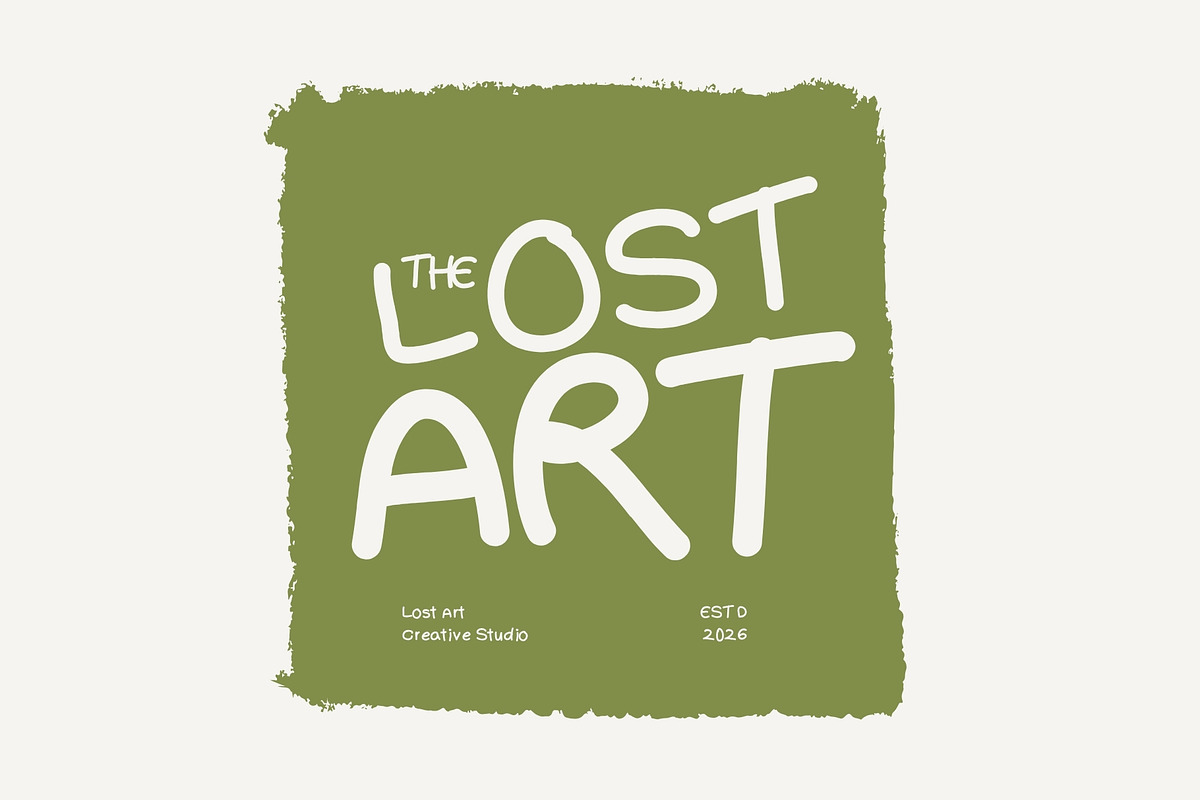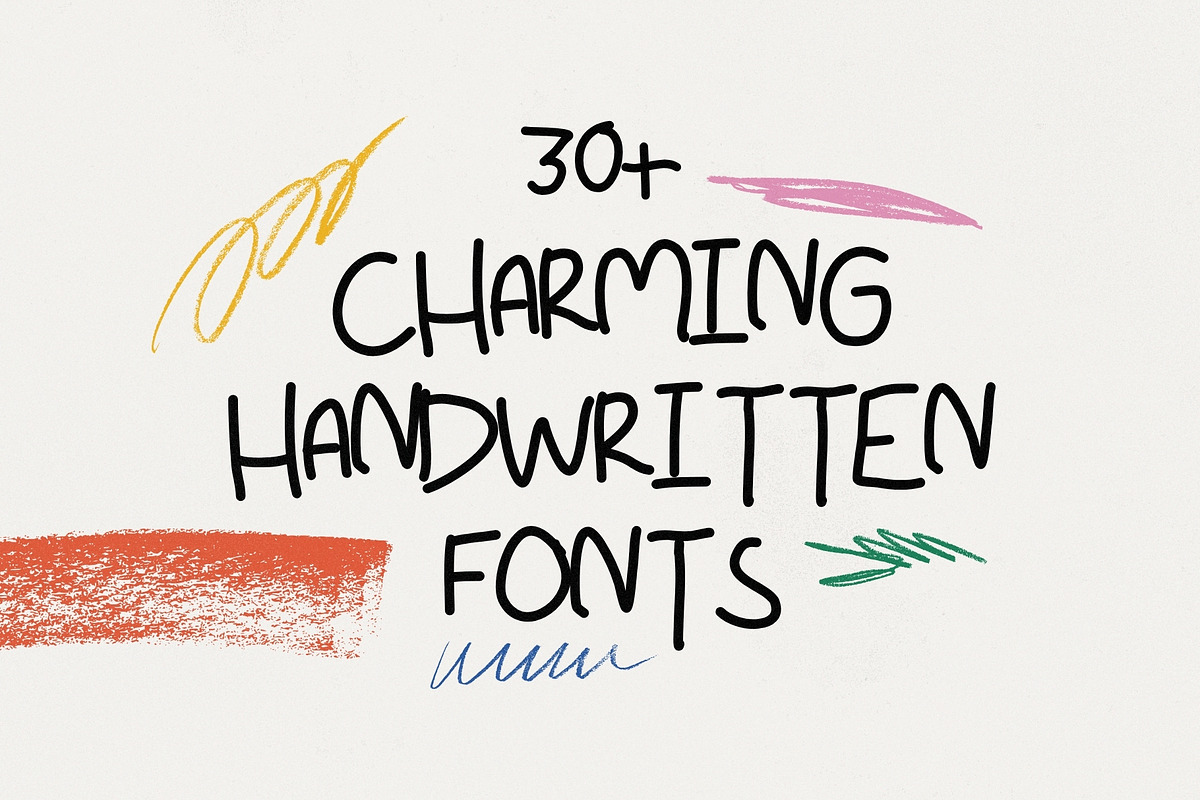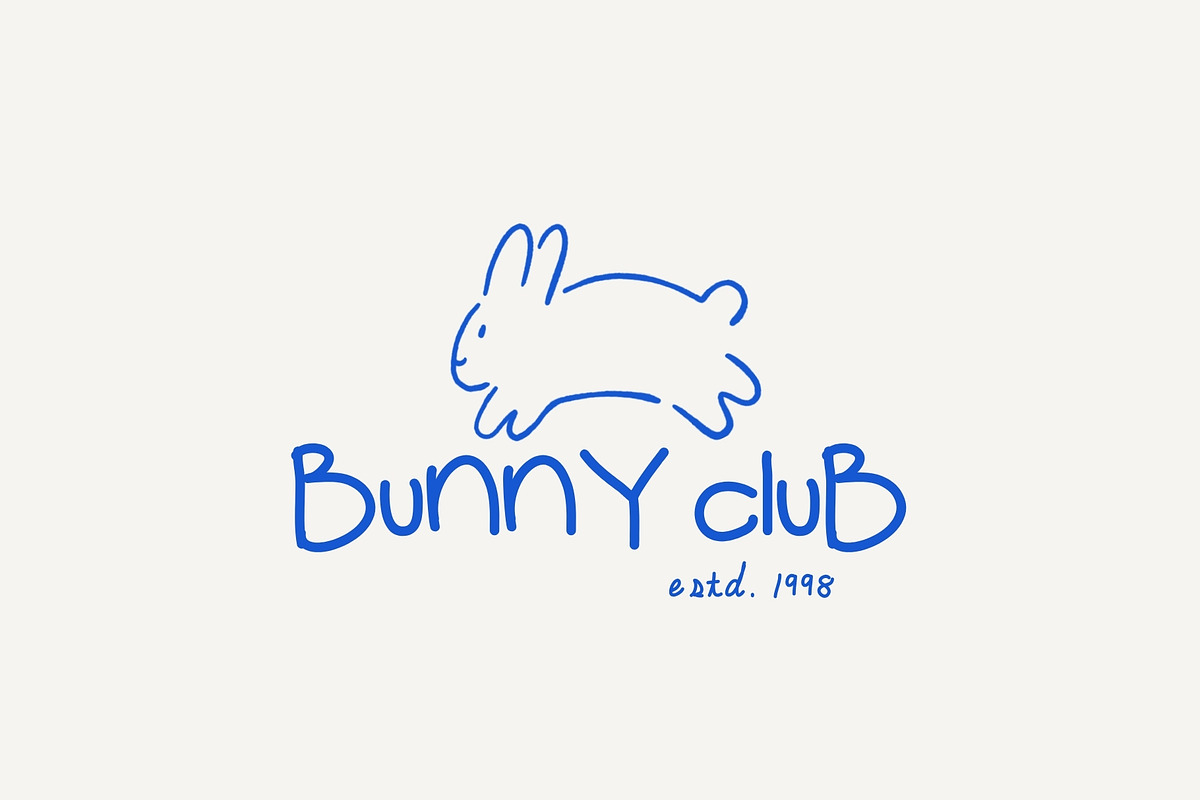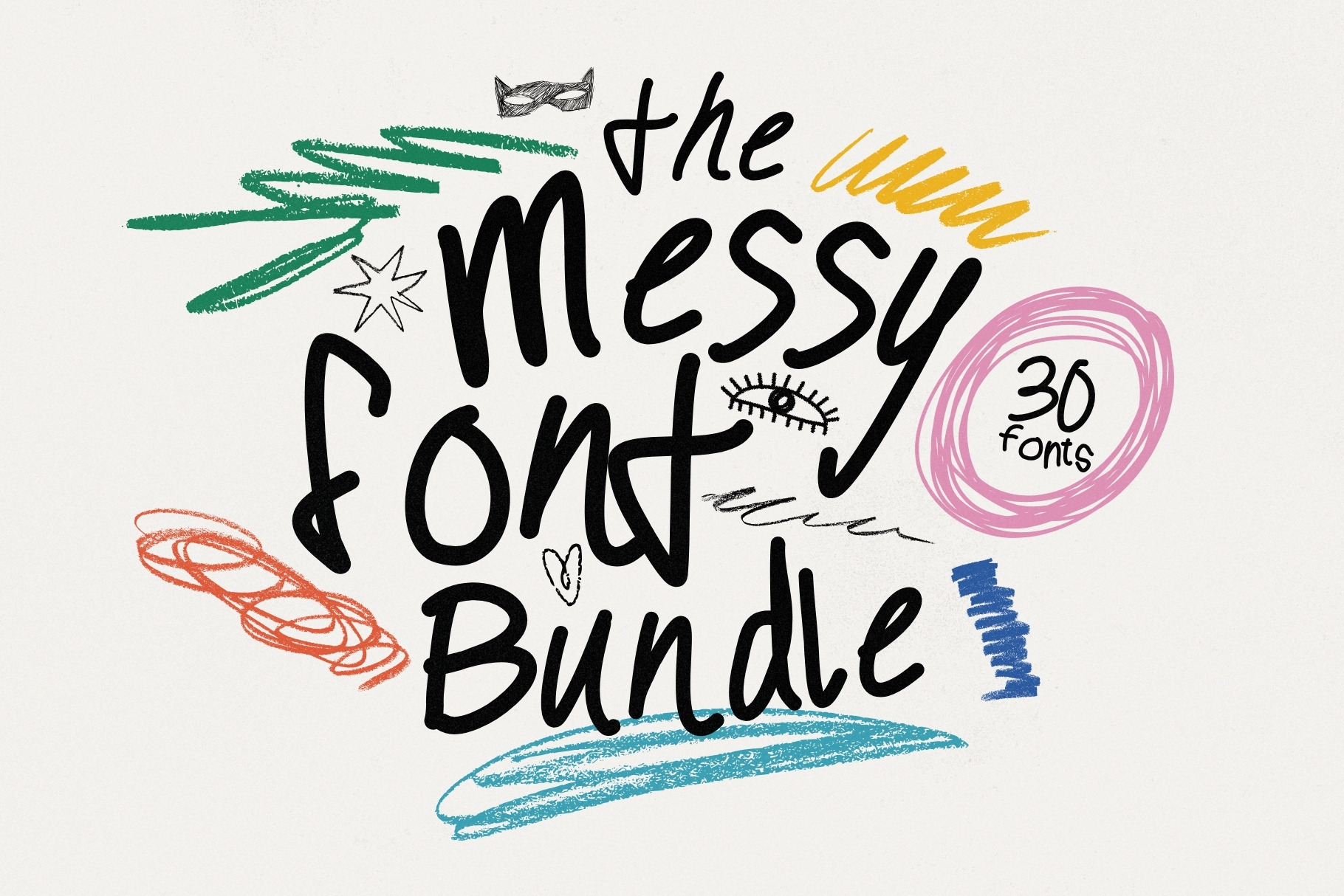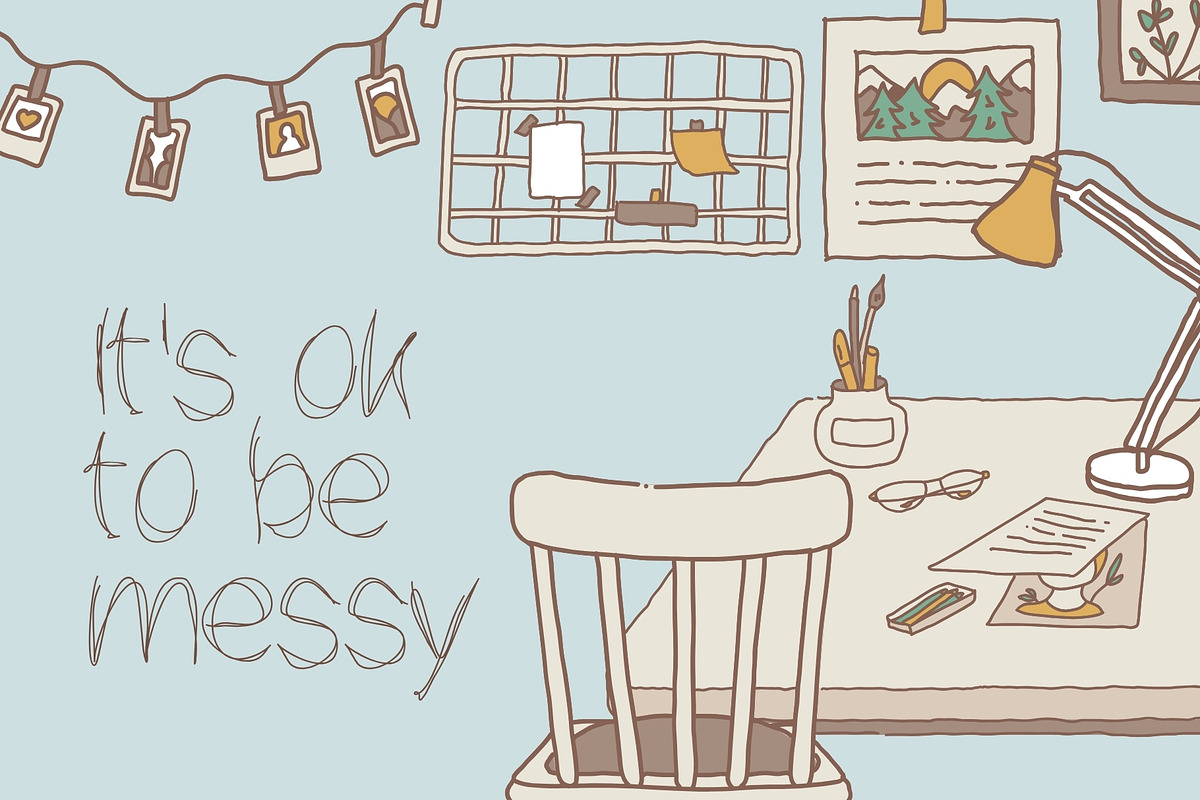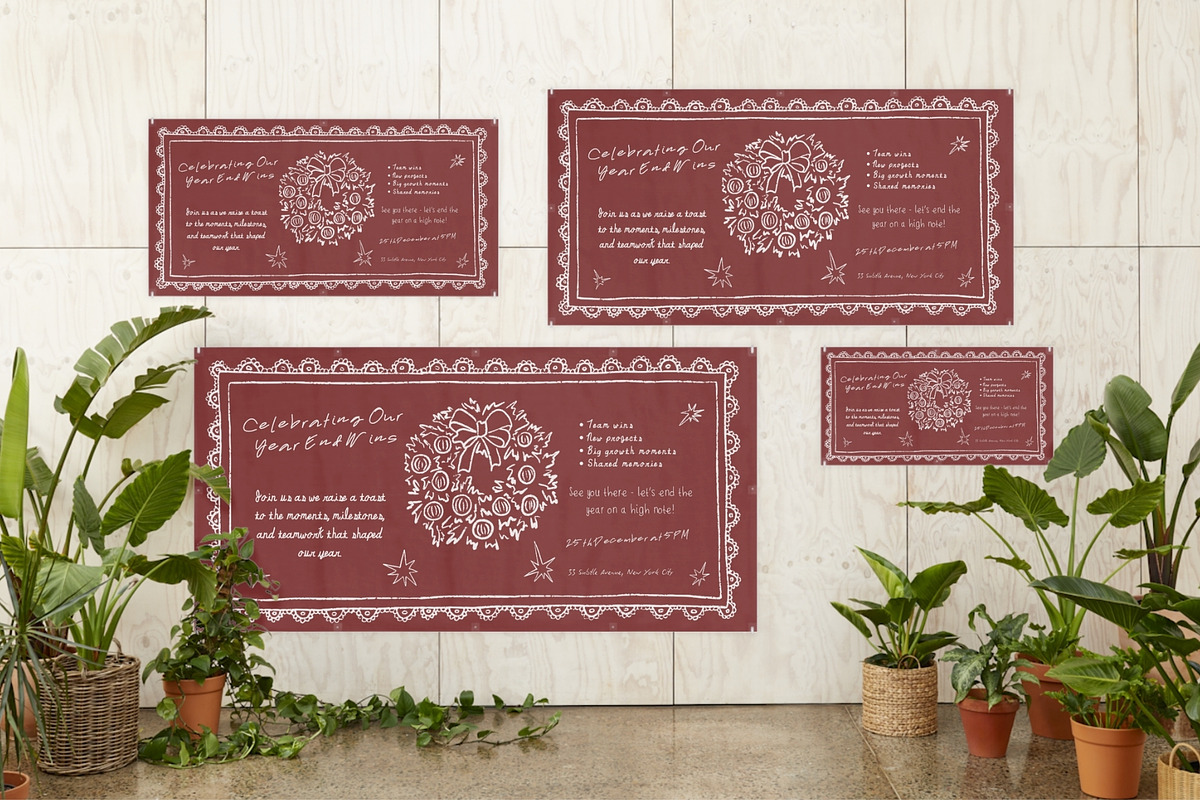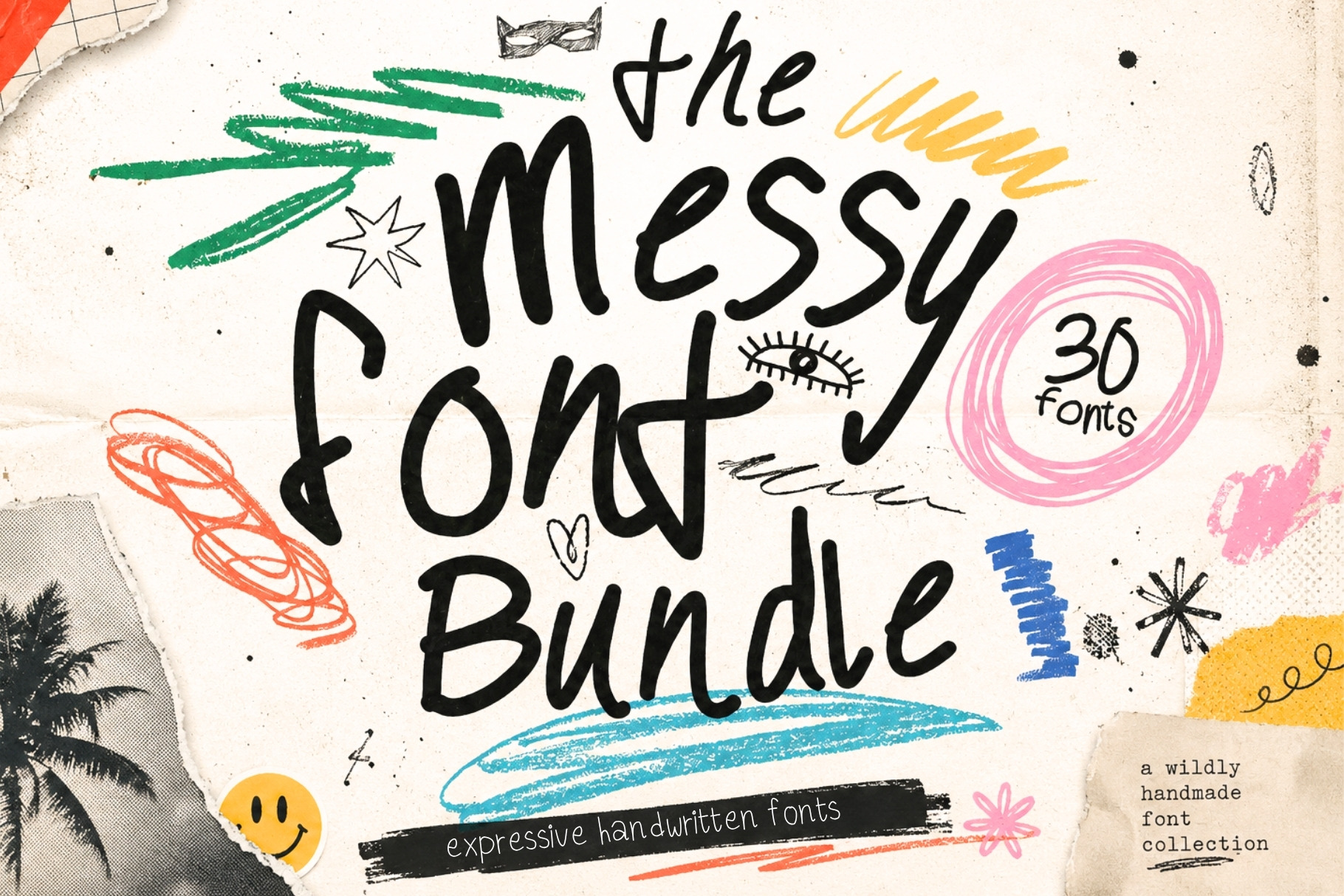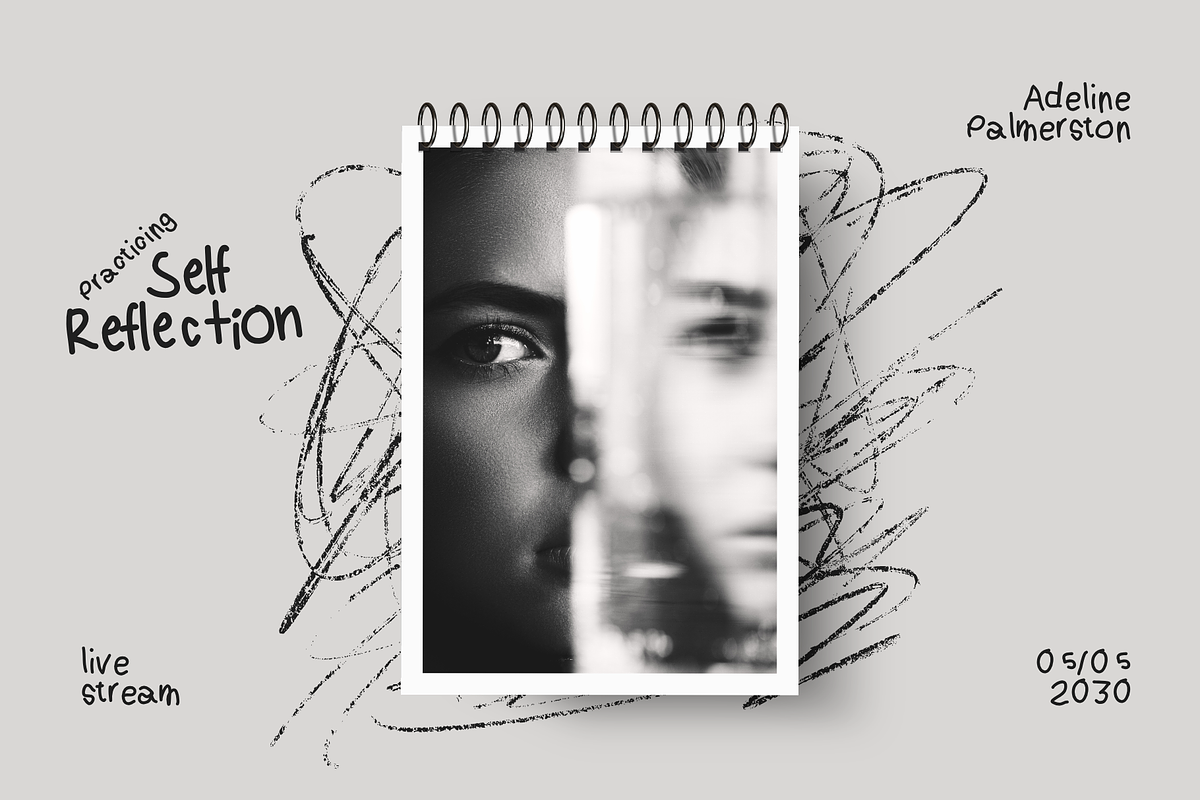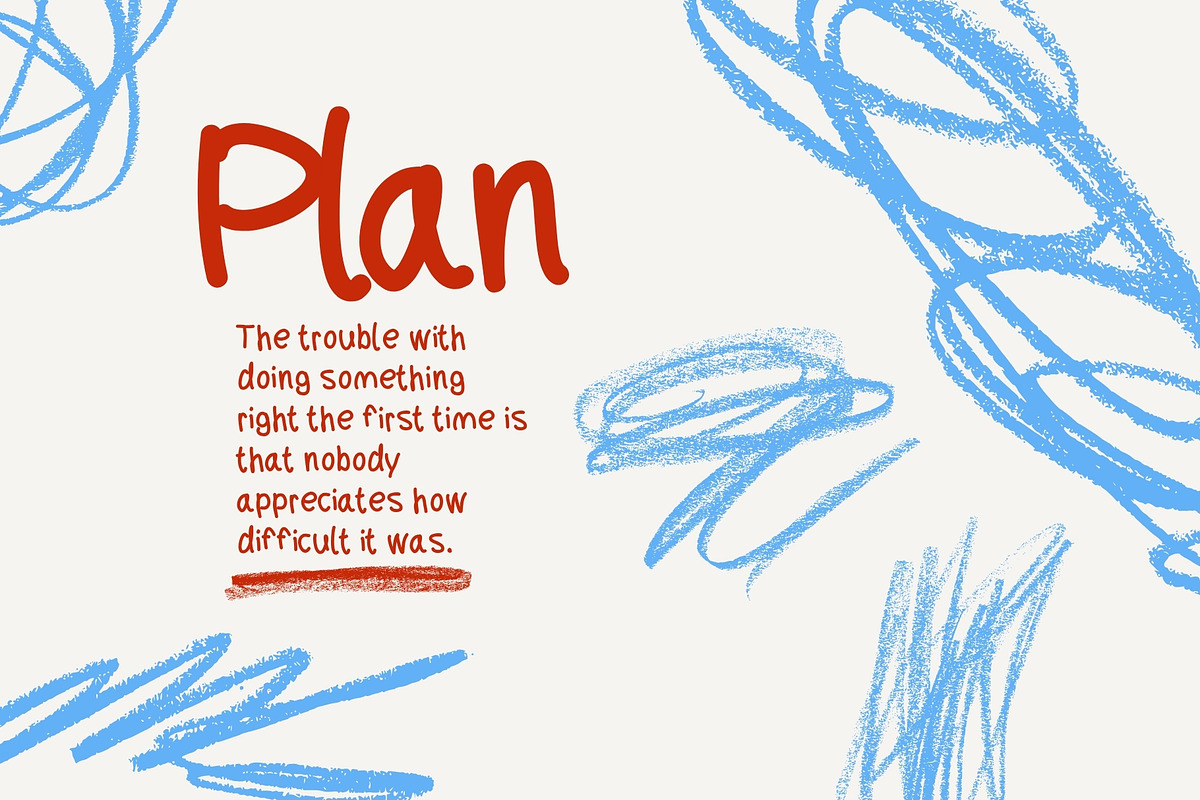
Messy Font Bundle - 30 Human Fonts
Introducing The Messy Font Bundle — a carefully curated collection of 30 authentic imperfect fonts designed to bring humanity, personality, and real handcrafted emotion back into modern design. In a world increasingly shaped by artificial intelligence and overly polished visuals, these fonts celebrate the beauty of imperfection, spontaneity, and genuine human creativity.
Inside this bundle, you'll discover expressive handwritten scripts, rough serifs, messy marker fonts, raw brush lettering, imperfect sans serifs, textured display fonts, and organic typefaces full of natural inconsistencies and handcrafted charm. Every font carries realistic edges, uneven strokes, quirky details, and authentic character that make your designs feel alive and emotionally connected.
Perfect for branding, posters, packaging, album covers, social media graphics, editorial layouts, apparel, zines, art projects, indie brands, handmade products, and creative storytelling, The Messy Font Bundle helps designers escape sterile digital perfection and create work that feels raw, honest, and human.
Authentic. Imperfect. Beautifully real.